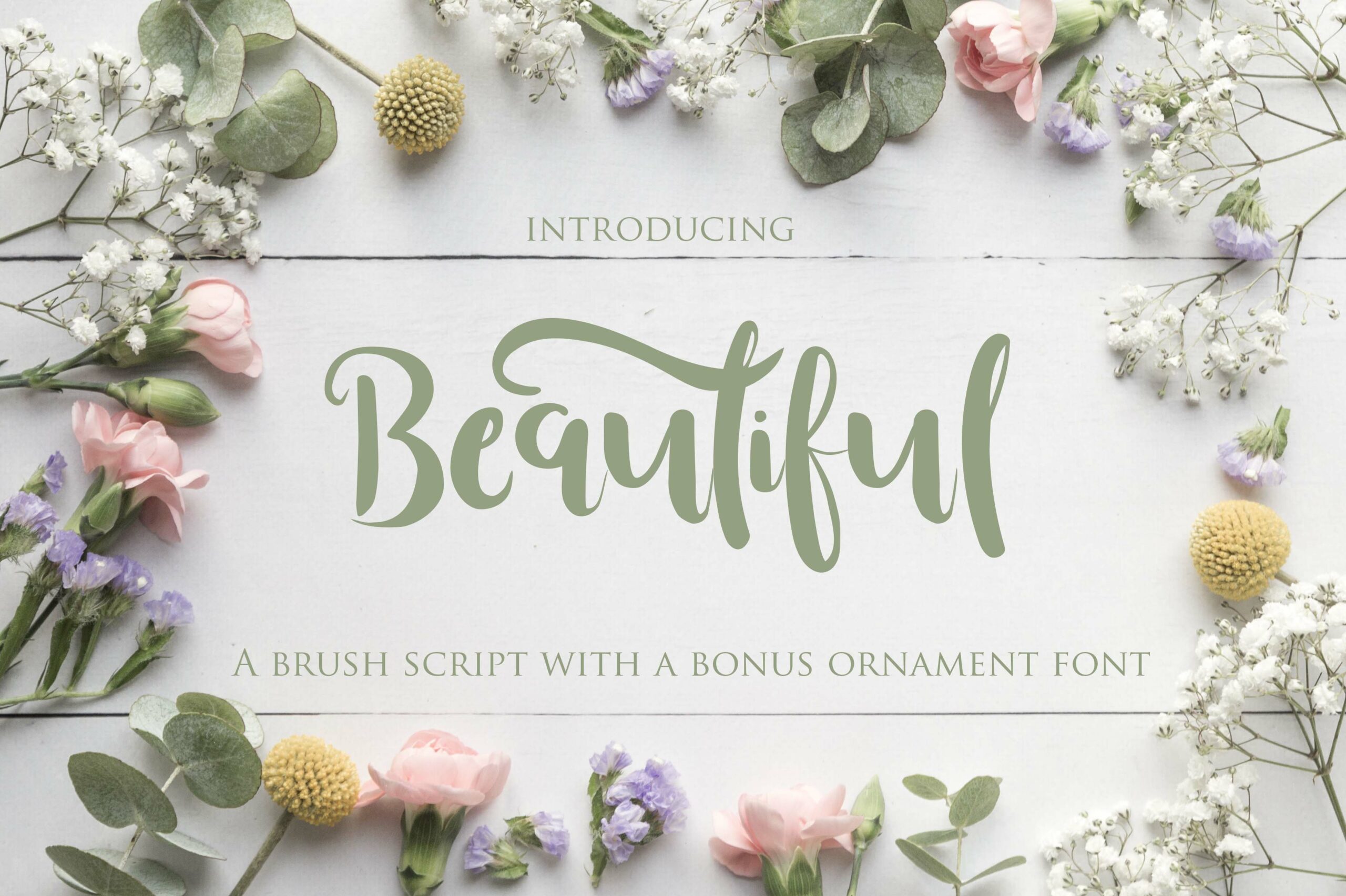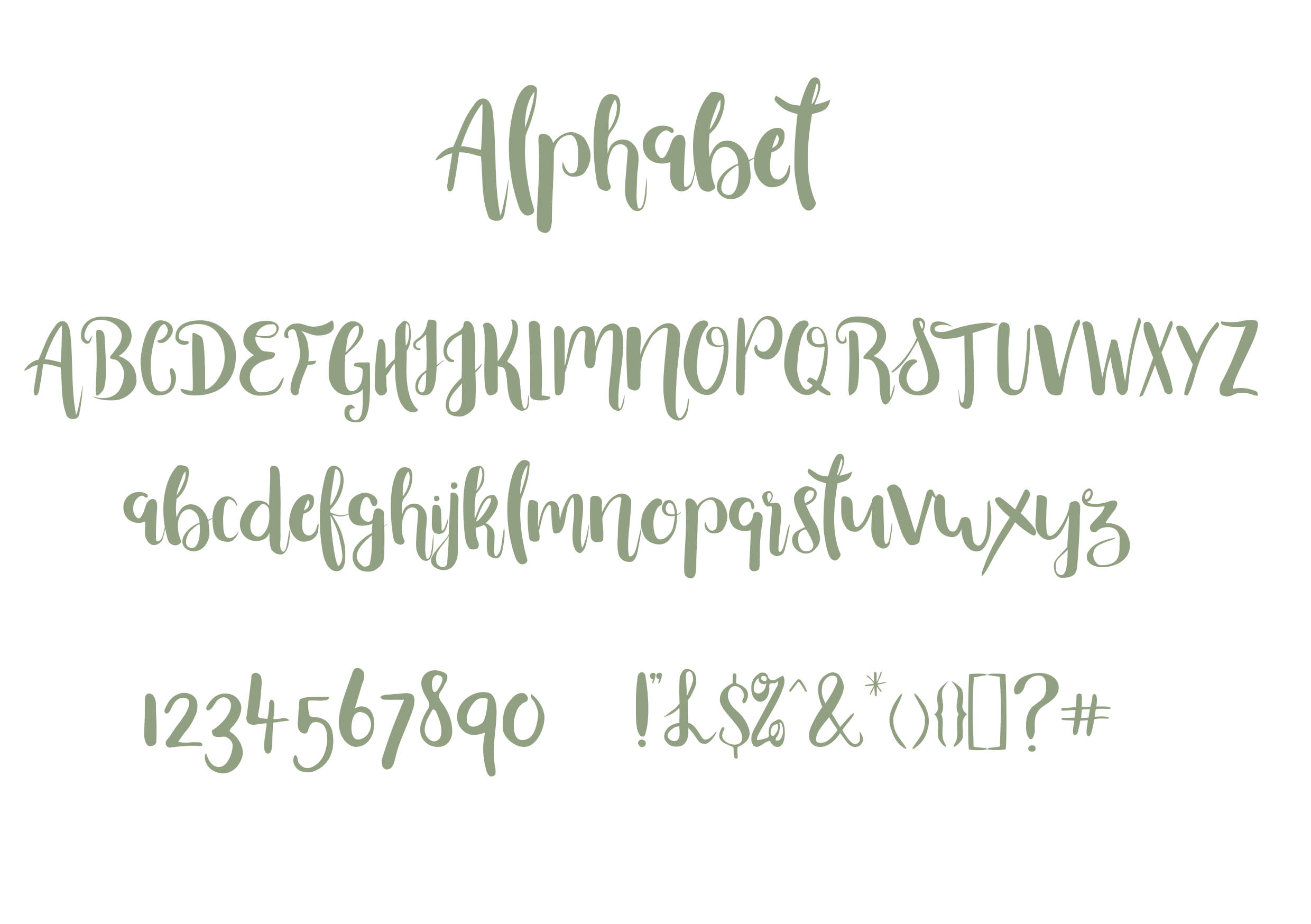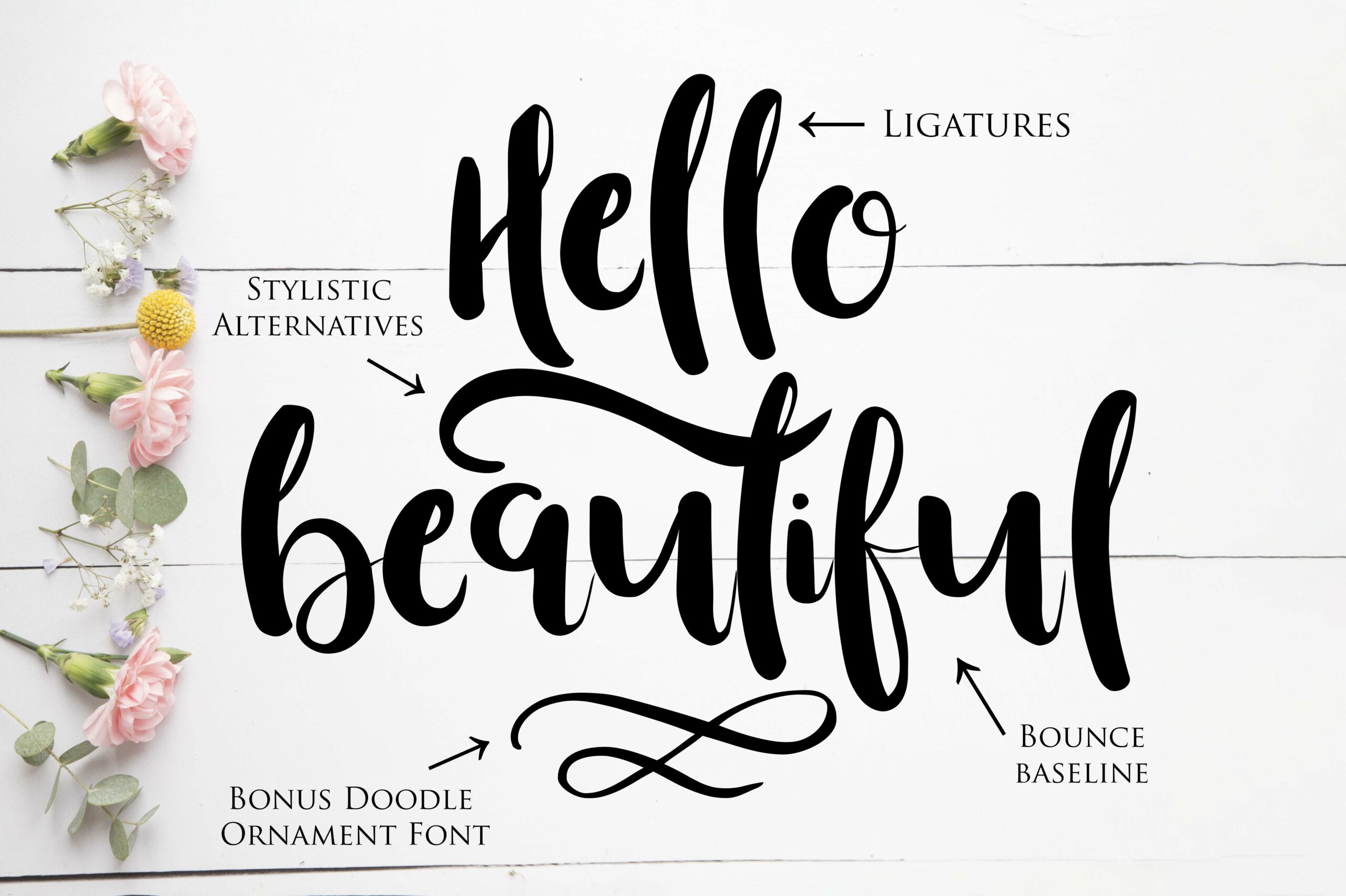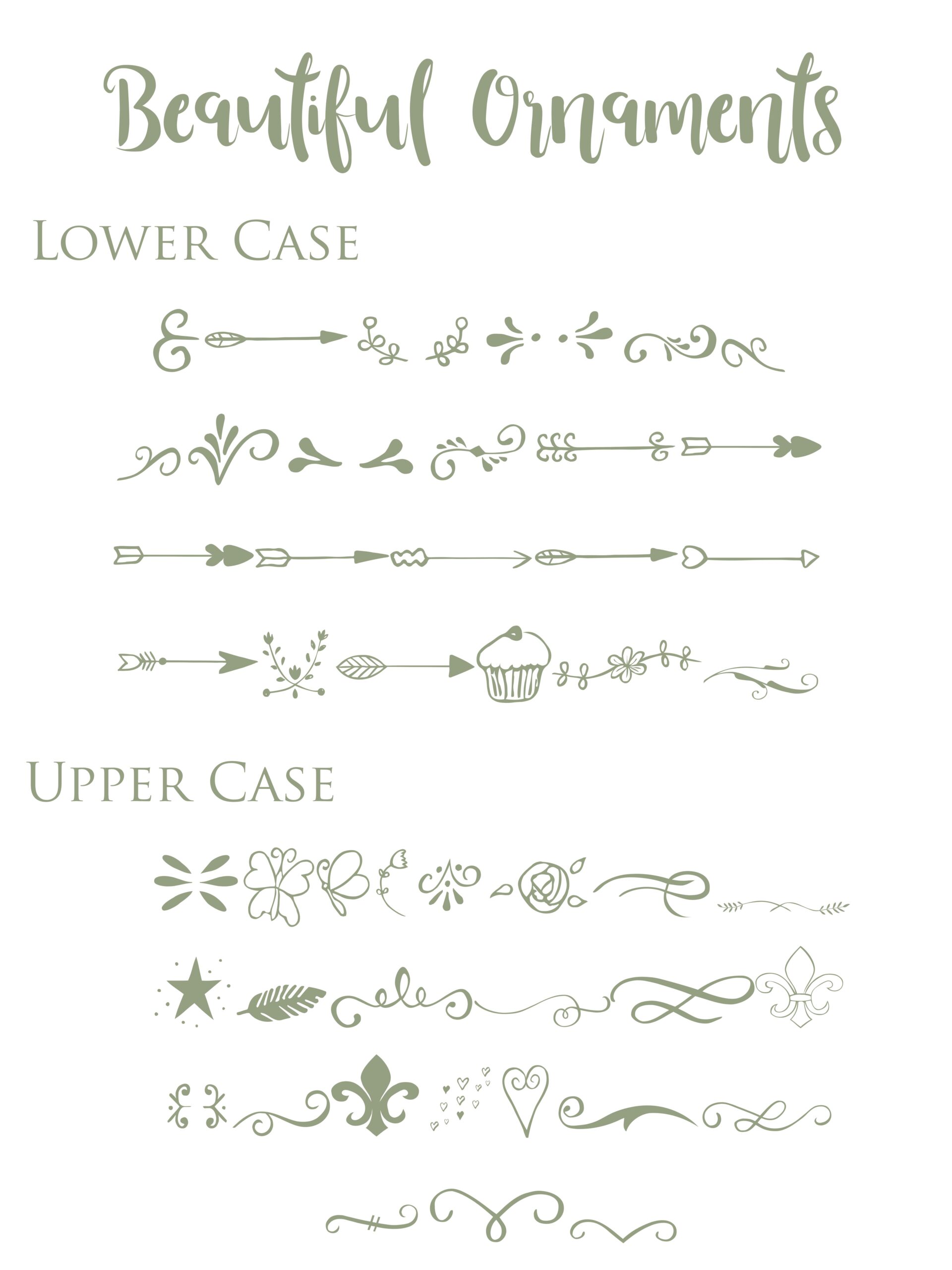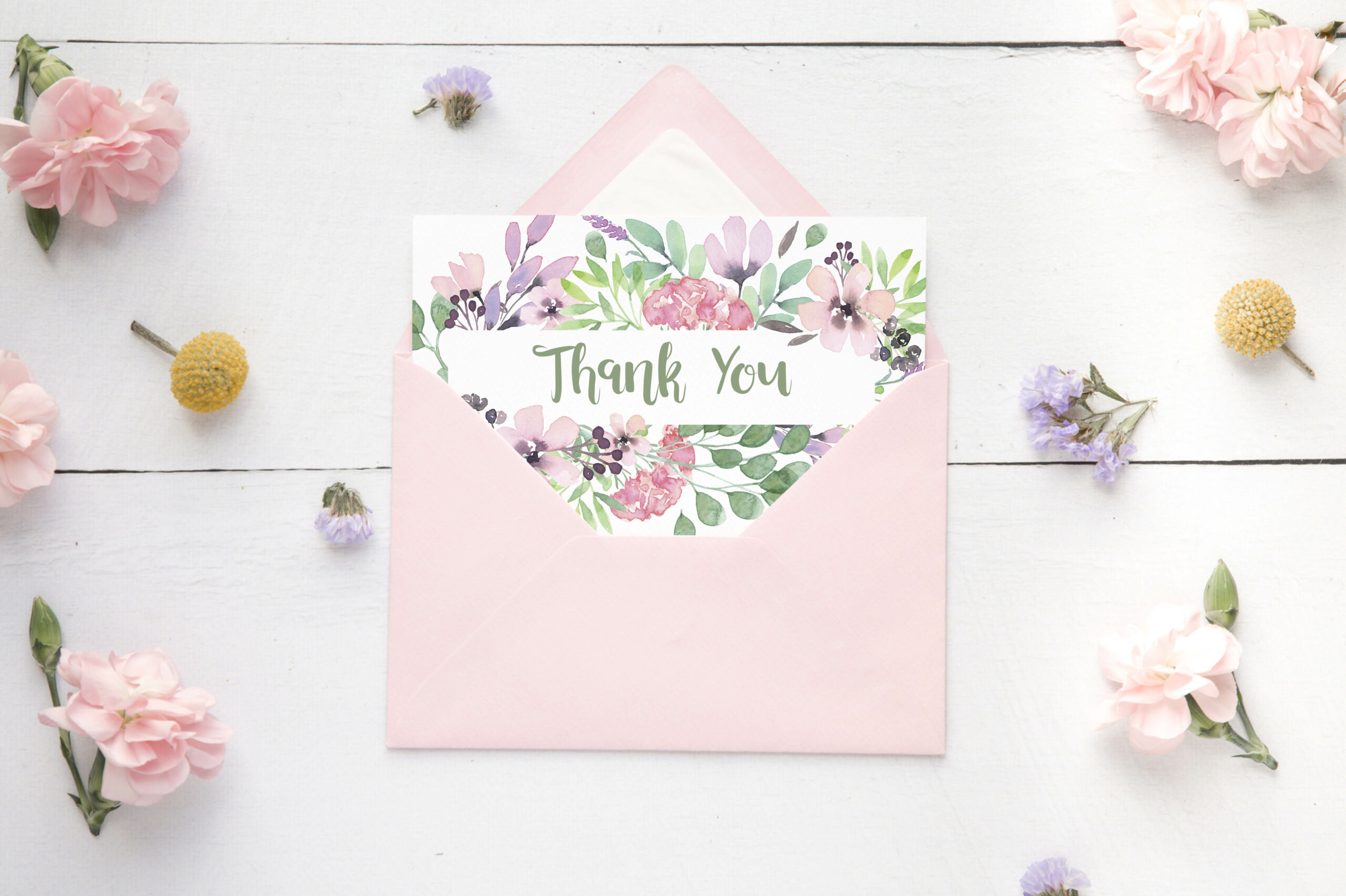
Beautiful Font
About Beautiful Font
Beautiful is a wonderful brush font with a bouncing baseline, and comes with bonus ornaments. This high contrast, modern script lives up to its namesake across a large range of design ideas.